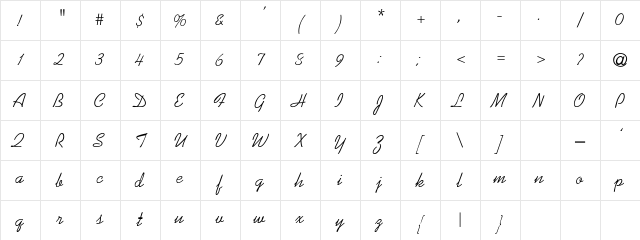
Kaufmann Thin Free Font
Kaufmann Thin
Style: Thin
Design Context for Kaufmann
Kaufmann is a composed and adaptable typeface that performs quietly and consistently across a wide range of design contexts. Its slender proportions lend an understated elegance to any composition.